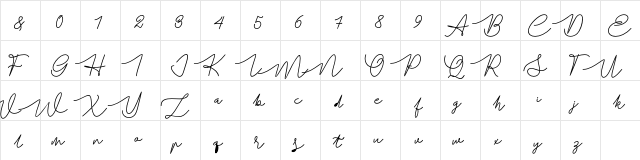
Batavia Glamore Script Bold Font Preview
| Foundry | Afredo.fk |
| Designer | Zulfikar Ali |
Design Context for Batavia Glamore Script Typeface
Batavia Glamore Script brings a calligraphic fluidity to the page — its connecting strokes and expressive curves give it an unmistakably human quality. Its bold stroke weight gives it real presence on the page.